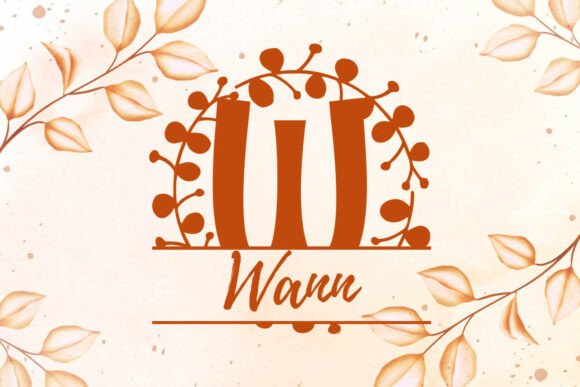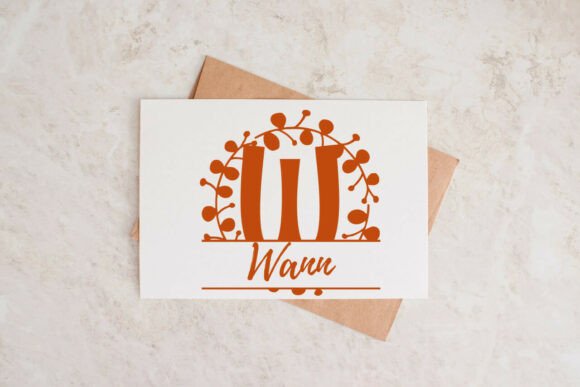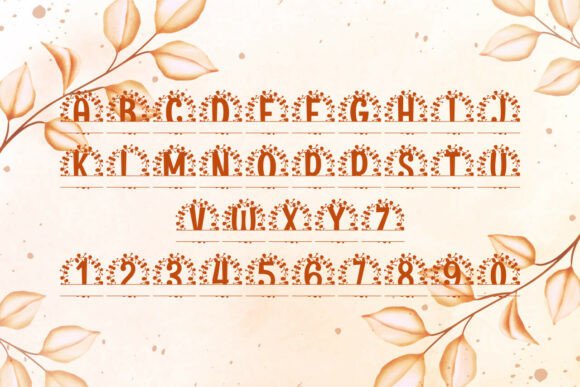
The Perfect Monogram for Every Occasion
Do you remember the first time you saw a beautifully crafted monogram? Maybe it was on a wedding invitation, a custom t-shirt, or a personalized photo album. Whatever the moment, you likely felt a sense of excitement and appreciation for the thought and effort that went into creating it. For designers and crafters alike, creating stunning monograms can be a challenge, but what if you had a tool that made it easy?
Enter Blynford Split Monogram Font, a game-changing solution for anyone looking to add a touch of elegance to their designs. This versatile font turns any initial into a refined, name-ready emblem in seconds, making it perfect for a wide range of applications, from wedding keepsakes to boutique packaging.
Blynford Split Monogram Font Key Features
- Unique Characteristics: The Blynford Split Monogram Font features a unique split monogram design, where the letters are separated to create a distinctive and eye-catching effect.
- Legibility: The font is designed to be highly legible, making it suitable for use in body text, headings, and titles.
- Style: The font has a modern, elegant style, making it perfect for use in luxury brands, high-end products, and sophisticated designs.
Blynford Split Monogram Font Review
Overall, I found the Blynford Split Monogram Font to be an interesting addition to the world of typography. Here are some of its strengths and weaknesses:
- Unique design: The Blynford Split Monogram Font offers a fresh take on the classic monogram style.
- Highly customizable: The font is available in various styles, from modern to vintage, allowing users to choose the perfect fit for their design needs.
- Easy to read: Despite its intricate design, the font remains legible and easy to read, even at smaller font sizes.
- Limited language support: The font may not support certain languages, which could be a limitation for designers working with multilingual content.
- May not be suitable for body text: Due to its ornate design, the font may not be the best choice for large blocks of body text.
Overall, I would give the Blynford Split Monogram Font 4 out of 5 stars. While it excels in terms of uniqueness and customization options, its limitations may make it less suitable for certain design projects. However, for the right project, it can be a great choice for adding a touch of elegance and sophistication.
Blynford Split Monogram Font: A Practical Application Guide
Tips for Getting the Most Out of the Blynford Split Monogram Font
Here are a few tips to help you get the most out of the Blynford Split Monogram Font:
- Use the font to create visually appealing monograms and logos.
- Combine the font with other design elements to create unique and eye-catching designs.
- Experiment with different font sizes and colors to achieve the desired look.
The Blynford Split Monogram Font is commonly used in: